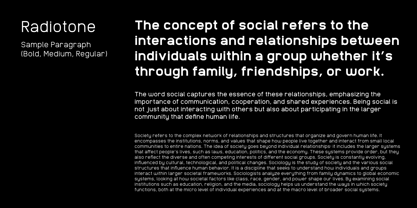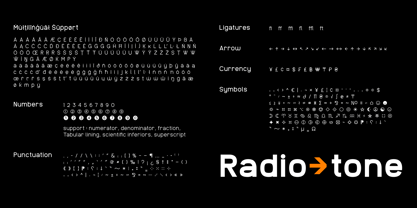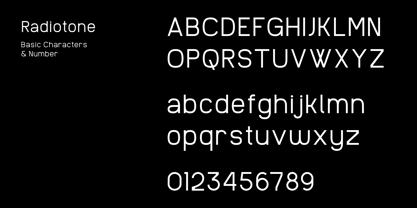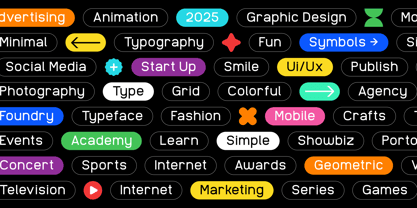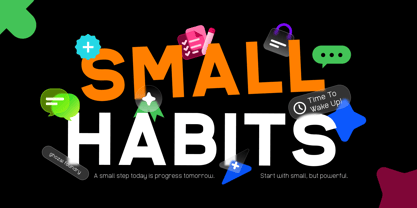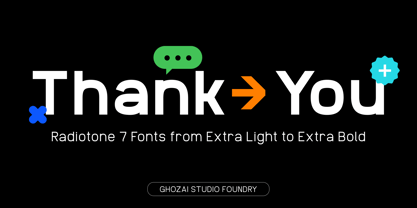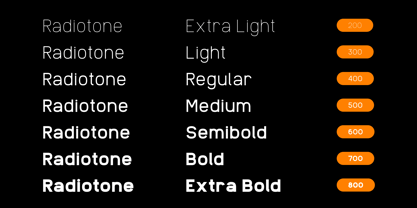
Radiotone
by Ghozai Studio
The Radiotone Font Family was designed by Manzur Ghozaali and published by Ghozai Studio. Radiotone contains 7 styles and family package options. More about this family
Radiotone is a grotesk-sans font family that features 7 weights, ranging from Extra Light to Extra Bold. With a wide variety of weights, symbols, OpenType features, and multilingual glyph support, Radiotone ensures versatility across different languages and design needs. Its modern, clean, bold design makes it ideal for a variety of applications, including display, branding, signage, festival posters, sport, and more. Whether creating impactful headlines, distinctive logos, or clear signage, Radiotone delivers both style and functionality. Its flexibility allows it to adapt to different design styles, making it the perfect choice for any project that requires a bold and contemporary touch.
Designers: Manzur Ghozaali
Foundry: Ghozai Studio